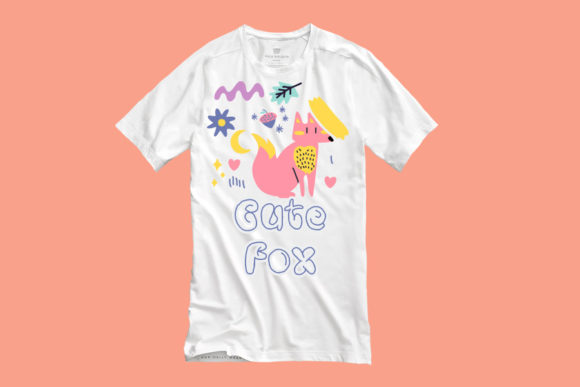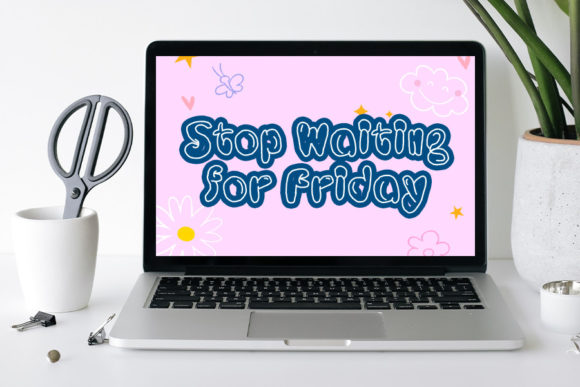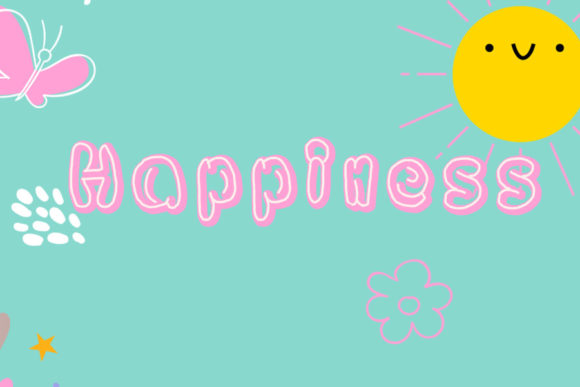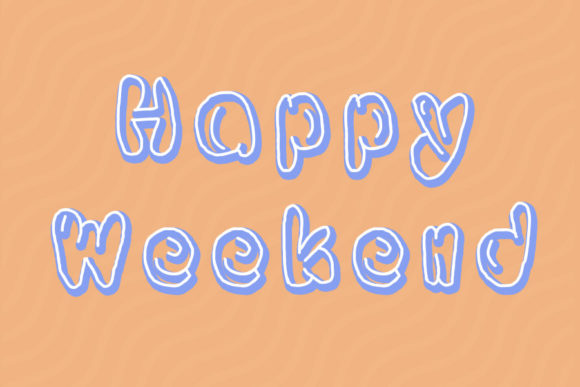
Cute Weekend Font: The Perfect Addition to Your Fun and Playful Designs
Are you looking for a font that can add a touch of youth and joy to your designs? Look no further than Cute Weekend Font! This cool, incredibly cute, and bubbly display font is perfect for party invitations, swimming gatherings, or any design that requires a playful and fun vibe.
What is Cute Weekend Font?
Cute Weekend Font is a display font that is designed to bring a sense of fun and playfulness to your designs. Its cute and bubbly appearance makes it perfect for designs that require a youthful and energetic feel. The font is versatile and can be used for a variety of purposes, from party invitations to social media graphics.
Key Features of Cute Weekend Font
- Cute and Bubbly Appearance: The font has a unique and playful design that is sure to grab attention.
- Display Font: Cute Weekend Font is a display font, making it perfect for headlines, titles, and other display text.
- Youthful and Joyful Feel: The font is designed to bring a sense of youth and joy to your designs.
- Versatile: The font can be used for a variety of purposes, from party invitations to social media graphics.
How to Use Cute Weekend Font
Cute Weekend Font can be used in a variety of ways to add a touch of fun and playfulness to your designs. Here are a few ideas:
- Party Invitations: Use Cute Weekend Font to create fun and playful party invitations that will get your guests excited.
- Social Media Graphics: Add a touch of fun and playfulness to your social media graphics with Cute Weekend Font.
- Swimming Gatherings: Use the font to create fun and playful graphics for your swimming gatherings.
- Crafting Projects: Cute Weekend Font is perfect for crafting projects, such as making cards, gift tags, and other DIY crafts.
Why Designers and Crafters Love Cute Weekend Font
Designers and crafters love Cute Weekend Font for its unique and playful design. The font is easy to use and can be paired with a variety of other fonts to create a unique and eye-catching design. Here are a few reasons why designers and crafters love Cute Weekend Font:
- Unique Design: The font has a unique and playful design that is sure to grab attention.
- Versatile: The font can be used for a variety of purposes, from party invitations to social media graphics.
- Pairs Well with Other Fonts: Cute Weekend Font can be paired with a variety of other fonts to create a unique and eye-catching design.
Tips for Using Cute Weekend Font
Here are a few tips for using Cute Weekend Font:
- Use it for Headlines and Titles: Cute Weekend Font is perfect for headlines and titles, where you want to grab attention.
- Pair it with Other Fonts: Pair Cute Weekend Font with other fonts to create a unique and eye-catching design.
- Use it for Fun and Playful Designs: Cute Weekend Font is perfect for fun and playful designs, such as party invitations and social media graphics.
Cute Weekend Font is a cool, incredibly cute, and bubbly display font that is perfect for adding a touch of youth and joy to your designs. With its unique and playful design, the font is sure to grab attention and make your designs stand out. Whether you’re a designer or crafter, Cute Weekend Font is a great addition to your font collection.